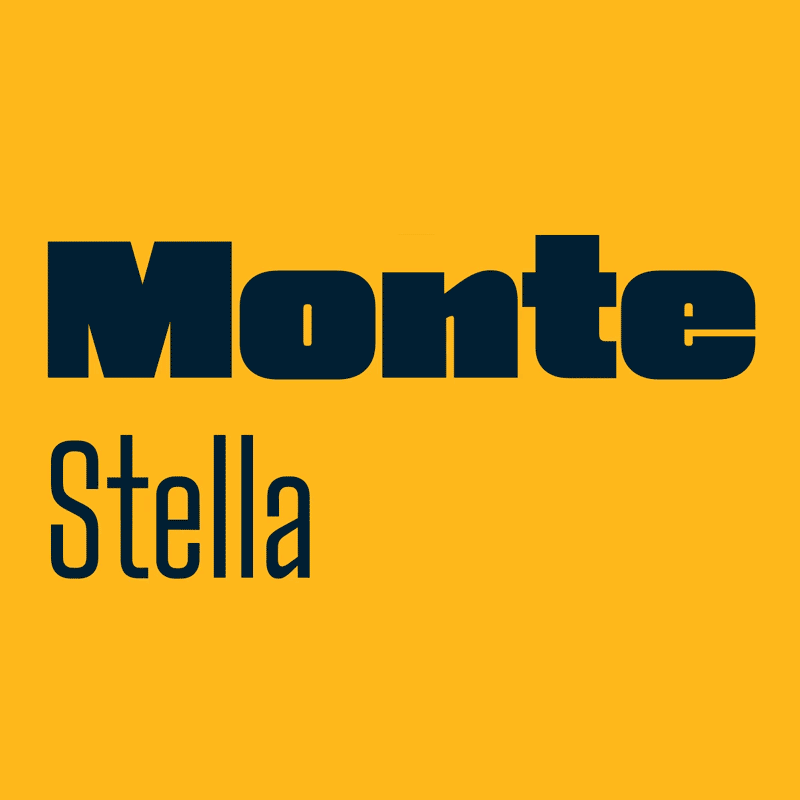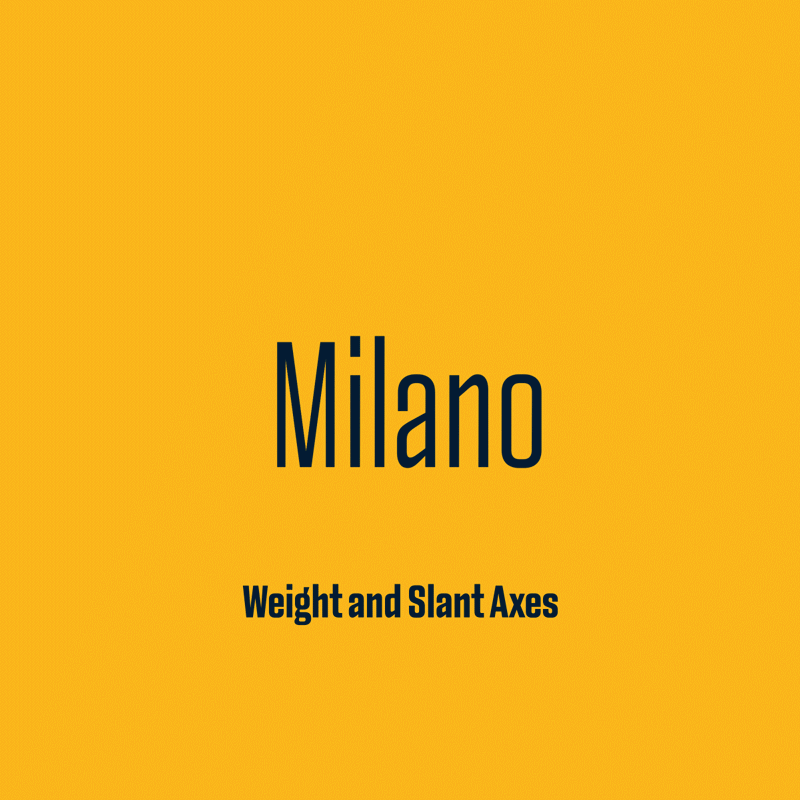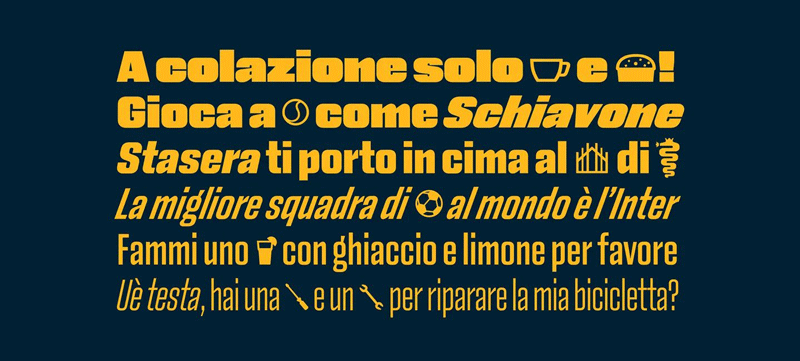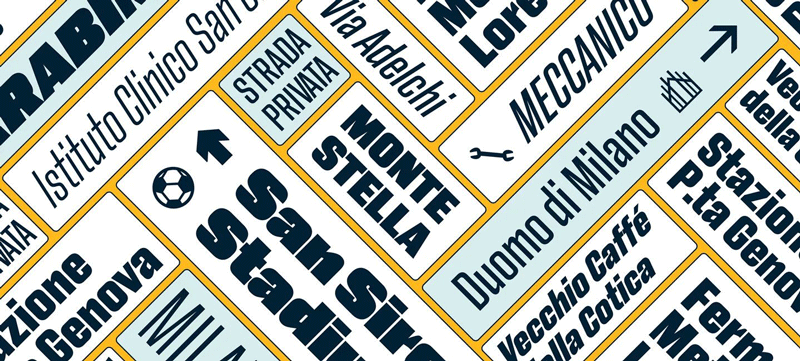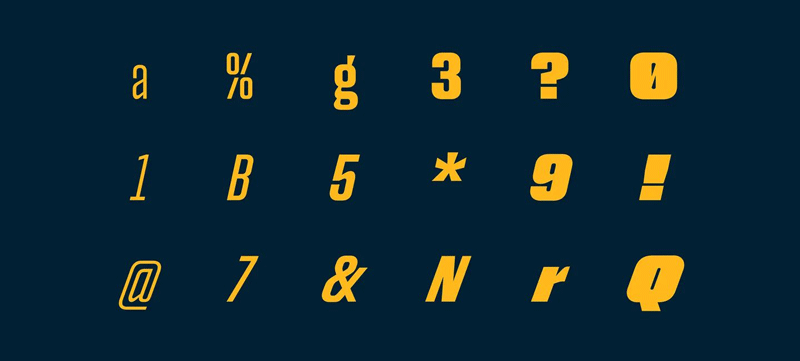
Monte Stella Font Family
Monte Stella, originated by Riccardo De Franceschi, is a celebration of Milan’s informal aesthetics and accidental design of the 1950s to 1970s. The inspiration came from public spaces, shop signs, and print design of the era, while the name pays tribute to the artificial mountain in the San Siro district that symbolized the city’s renaissance after World War II. Monte Stella’s letters are constructed and modular, with the purposeful naivety and imperfect feel of vernacular lettering.
Monte Stella Font